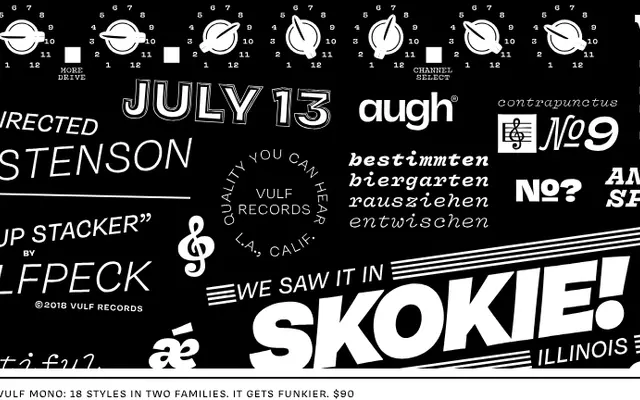
Vulf
OH no Type · James Edmondson · 2018
A typewriter-inspired monospace and its slab-stripped sans companion, designed as the official typeface of funk band Vulfpeck.
Vulf Mono takes its cues from the IBM Selectric's 12 Point Light Italic, rendered across four weights from Light to Black with matching italics, amounting to eight styles and 434 glyphs per style. Vulf Sans emerged from the same source by removing the slab serifs and switching to proportional spacing, adding a Medium weight to produce ten styles. Both families carry an unmistakable warmth and rhythmic irregularity that suits editorial, music and identity work where character is more valuable than neutrality.
Vulf Mono draws directly from the IBM Selectric typewriter's 12 Point Light Italic, placing it firmly in the typewriter-inspired monospace tradition. Vulf Sans is a proportionally spaced derivative, but the family's identity and origin are rooted in the mono.